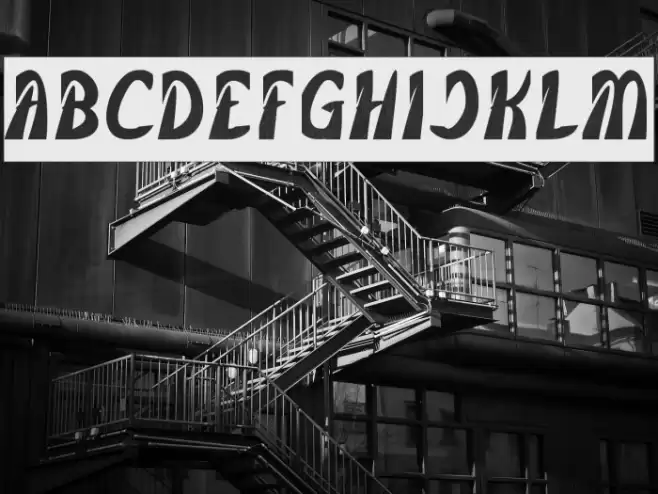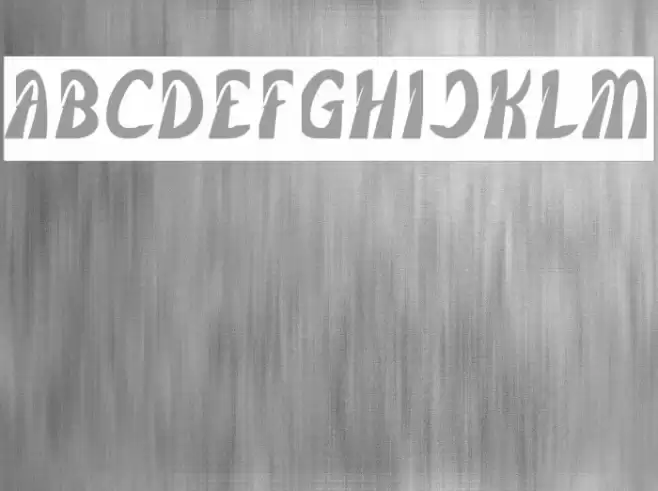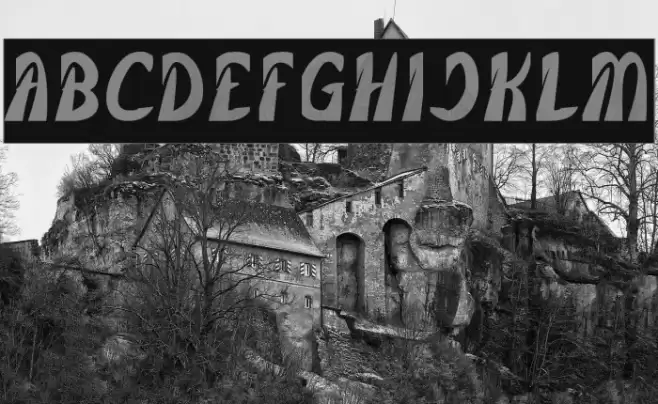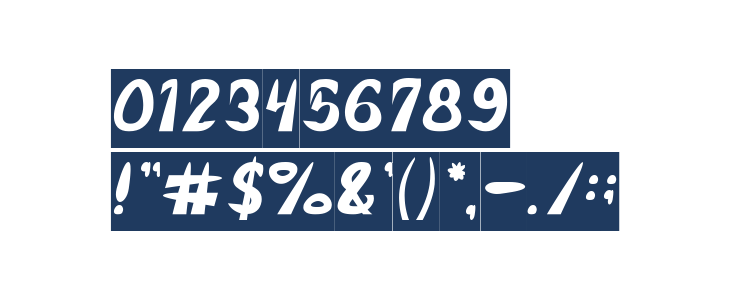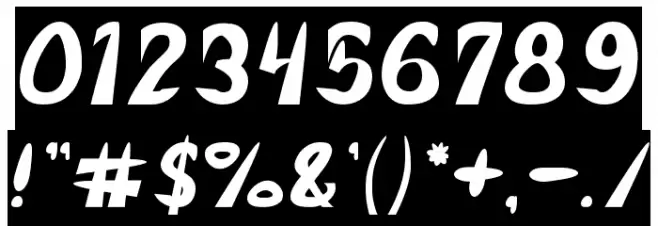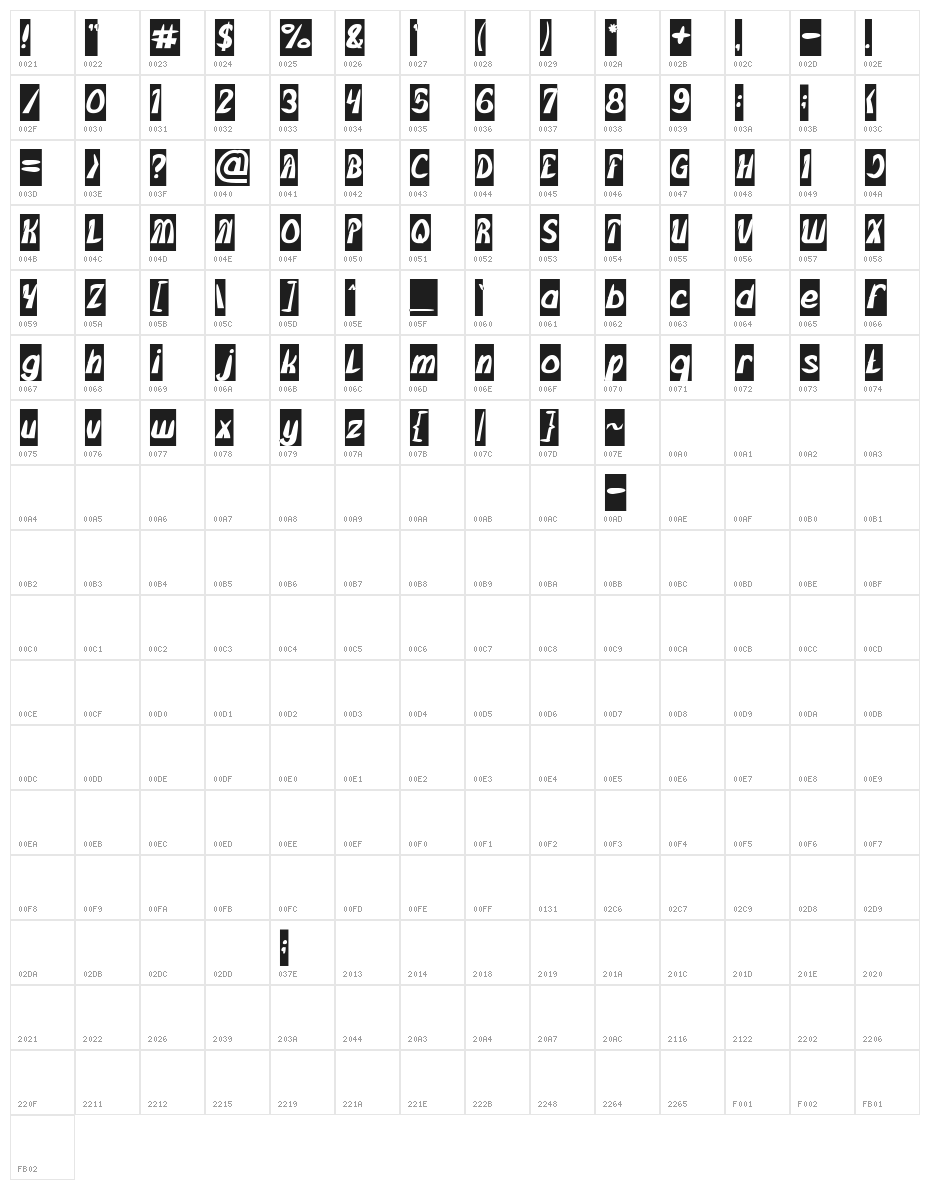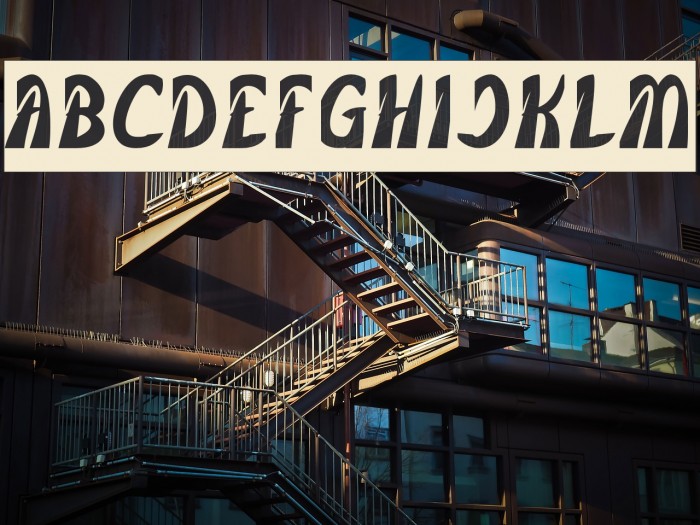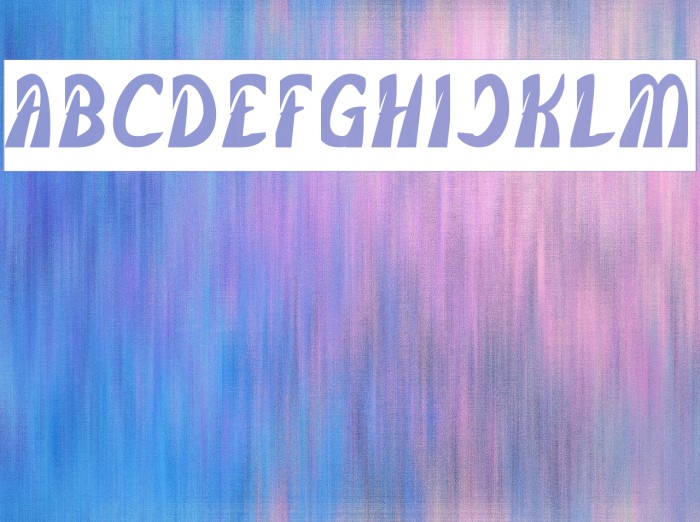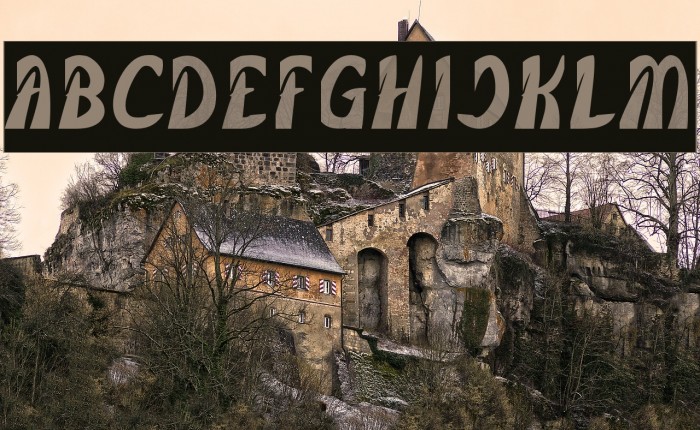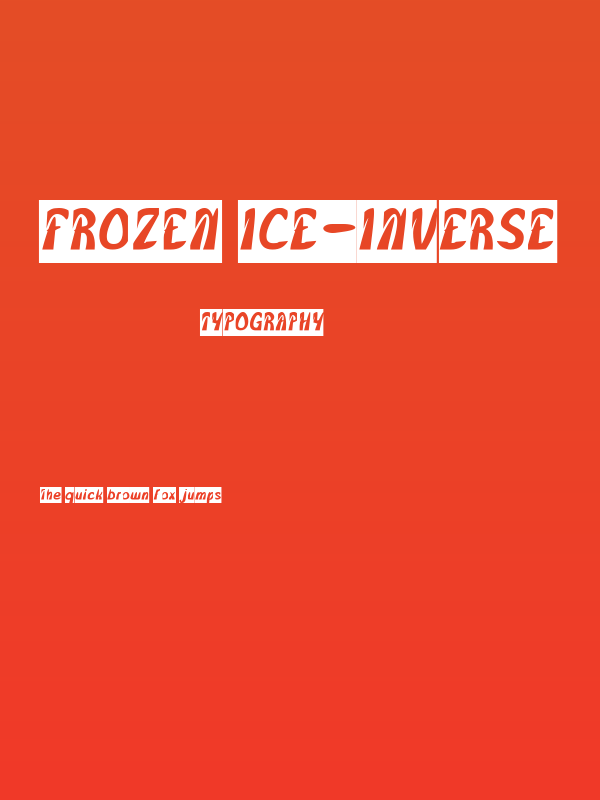
FROZEN ICE-Inverse Font
FROZEN ICE-Inverse Description
This font features a bold and dynamic style with a distinct slant, giving it a sense of movement and energy. The characters are designed with sharp angles and pointed edges, creating a striking and impactful appearance. The uppercase letters are particularly prominent, with a strong presence that commands attention. The lowercase letters maintain the same angular style, ensuring consistency throughout the typeface. Numbers and special characters are equally bold, making them suitable for a variety of uses. The overall design is modern and eye-catching, perfect for projects that require a bold statement.
A bold, angular font with a dynamic slant and modern appeal from Uncategorized fonts.
- Proposed Projects: Ideal for branding, advertising, posters, and any design that needs a bold, impactful typeface.